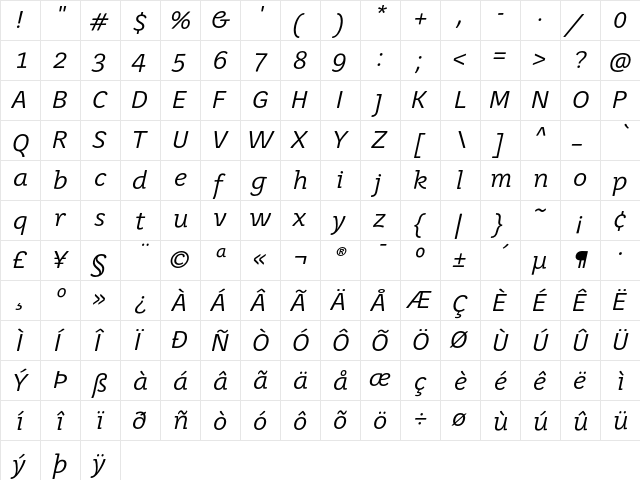
Juvenis Book Book Italic
Design Context for Juvenis Book Typeface
Juvenis Book is a composed and adaptable typeface that performs quietly and consistently across a wide range of design contexts. The dynamic lean of this cut emphasises speed and emphasis in any layout.
Pro Tip: Try Juvenis Book for annotation and caption copy alongside an upright companion — the contrast in angle creates a dynamic but ordered typographic system.